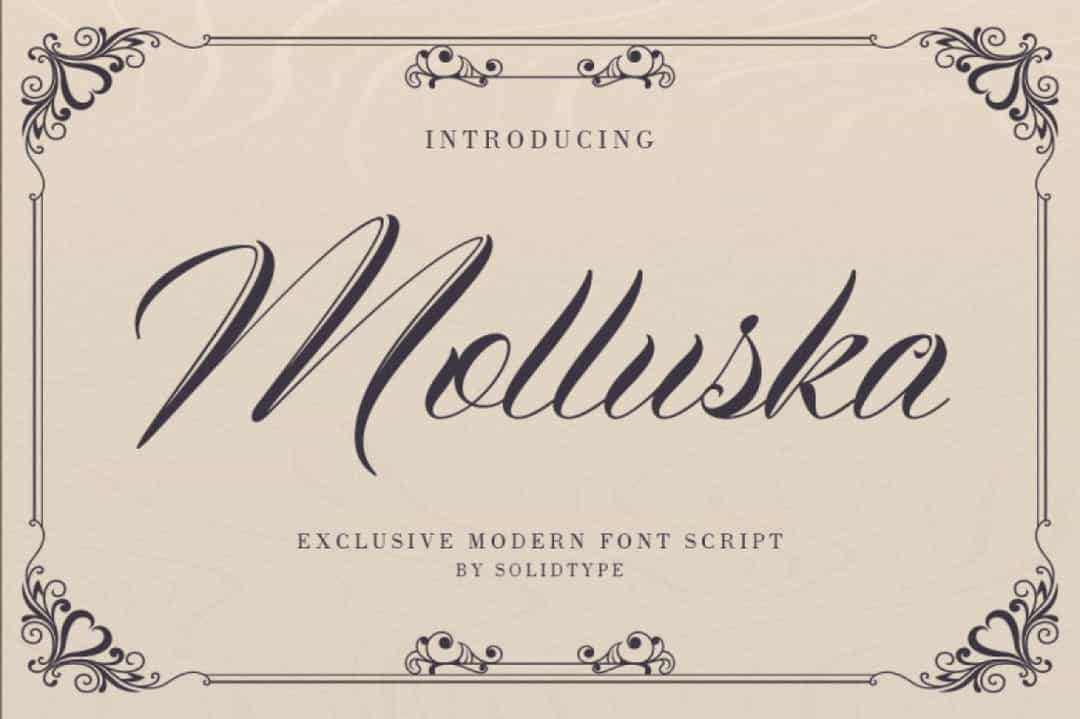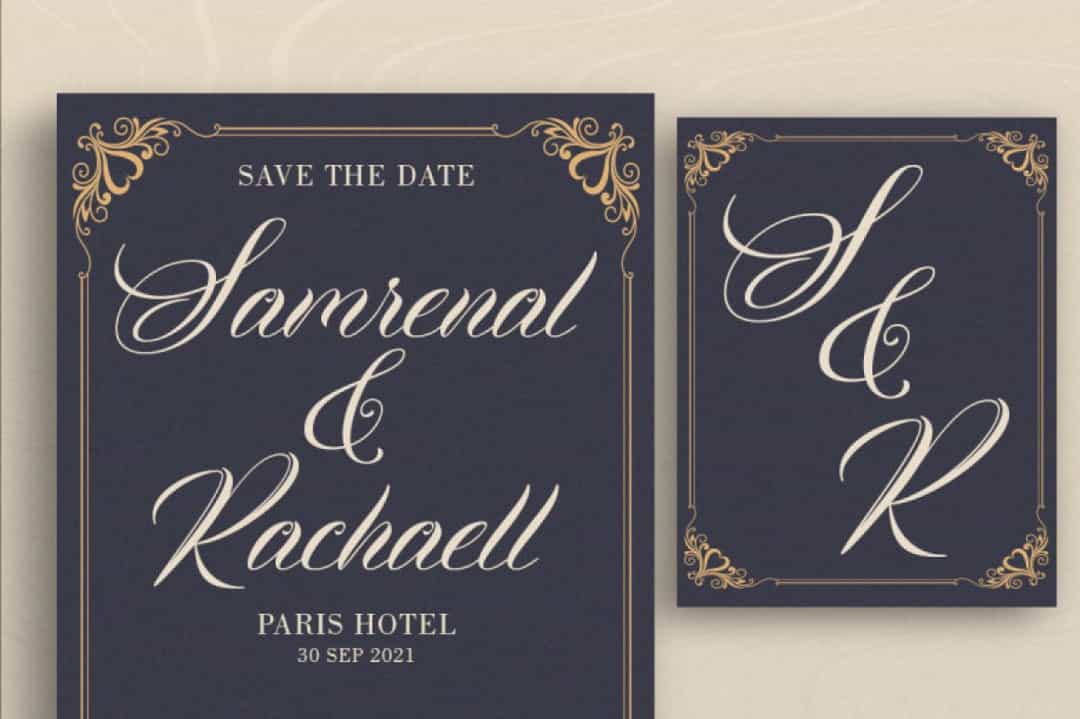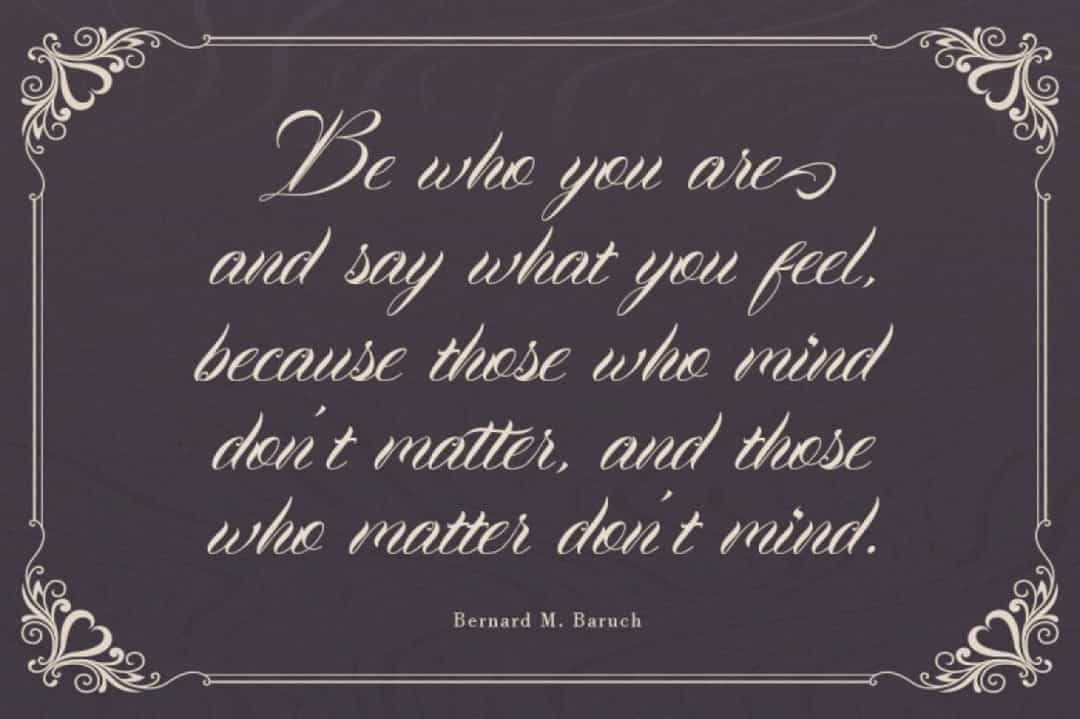
Discover Molluska Font, part of the Calligraphy collection—a versatile and unique font perfect for adding a personal touch to your projects. Download it for free and enjoy crafting designs with style, from invitations to social media posts. This font is available exclusively for personal use, giving you the freedom to create without limits. Unlock your creativity with Molluska Font today!
Molluska is an elegant calligraphy font with soft lines. You will fall in love with its versatile features and use it to craft beautiful designs! PUA encoded, you have access to all its characters easily.